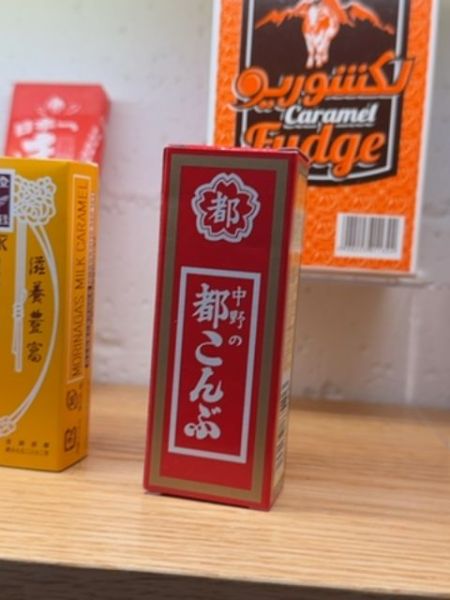
Nakanono Miyako Kombu
A traditional Japanese product made from kelp, used as a flavor enhancer or snack.
The typography on the packaging uses bold Kanji characters in white, set against a red background for high contrast. The font style is traditional and formal, emphasizing the product's heritage and authenticity. The use of a decorative emblem enhances the cultural aesthetic.
The packaging features a vivid red color with a golden border, conveying a sense of tradition and quality. The design is compact and rectangular, which is typical for Japanese food products, making it easy to stack and store.